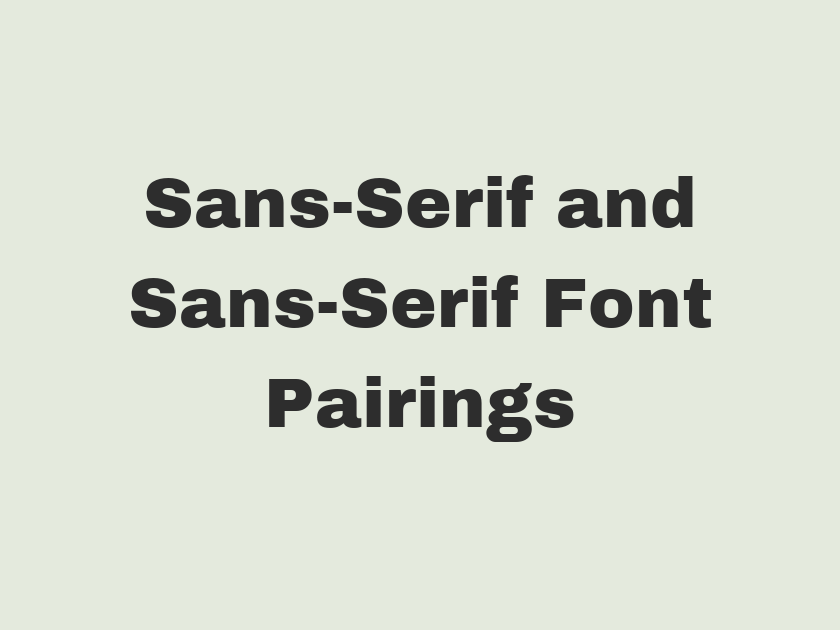
10 Best Sans-Serif and Sans-Serif Font Pairings
Pairing two sans-serifs takes a careful eye, since without the classic serif-versus-sans contrast you have to build hierarchy through weight, width, and proportion instead. The best sans-serif font combinations lean on a strong shift in personality, whether that means condensed against open, geometric against humanist, or heavy against light, so the page still reads with clear structure. These Google Fonts pairings work well for web interfaces, branding systems, and editorial layouts that want a modern, unified look without a single serif in sight.
Archivo Black + Archivo
Bold Statements, Clean Lines
This sentence sits comfortably beneath the heading, sharing its structure but at a lighter, more readable weight.
Archivo Black and Archivo come from the same type family, so the letterforms share identical proportions and skeletons; the only real variable is weight. That built-in relationship makes the transition from a heavy, attention-grabbing headline to a relaxed paragraph feel seamless, which suits dashboards, product pages, and tech branding.
Poppins + Inter
Geometric Meets Neutral
Inter was drawn for screens, and its calm, neutral letterforms make long paragraphs easy on the eyes.
Poppins brings a geometric, almost architectural personality to headlines with its circular bowls and even strokes, while Inter is engineered for legibility at small sizes on screens. The contrast between a distinctive display shape and an unobtrusive text face is exactly what keeps interfaces and marketing sites feeling both stylish and readable.
Space Grotesk + Work Sans
Technical Yet Approachable
Work Sans keeps the tone friendly and open, balancing the slightly quirky character of the headline above.
Space Grotesk has just enough personality in its ink traps and quirky curves to feel technical without turning cold, and Work Sans offers a warmer, more conventional grotesque for supporting copy. This pairing suits startup sites, developer tools, and editorial pieces that want a modern, slightly offbeat edge.
Oswald + Nunito Sans
Condensed Headlines, Open Text
Nunito Sans has soft, rounded terminals that keep body copy feeling friendly and easy to scan.
Oswald’s tall, narrow proportions make it excellent for punchy headlines that need to command space without taking up width, and Nunito Sans answers with a rounder, more generous body face. The width contrast between condensed and open forms gives the pair clear hierarchy at a glance, good for posters, blog headers, and news-style layouts.
Bebas Neue + Karla
Loud Titles, Calm Copy
Karla is a grotesque with subtle warmth, an easy match for a display face this bold and condensed.
Bebas Neue is all caps and maximum impact, so it needs a body font that steps back and lets paragraphs breathe; Karla’s understated grotesque forms do exactly that. This combination works well for event branding, posters, and any design where the headline needs to shout while the details stay composed.
Montserrat + Source Sans 3
Modern Geometric Structure
Source Sans 3 was built for interfaces and reads cleanly at small sizes across long passages of text.
Montserrat’s geometric, urban-inspired letterforms give headlines a confident, modern feel, while Source Sans 3 offers a workhorse text face with excellent legibility. The two share a similar x-height and even color on the page, so switching between them never feels jarring, making this a reliable choice for corporate and SaaS websites.
Anton + PT Sans
Industrial Headline Impact
PT Sans is sturdy and neutral, a dependable partner for a heading this stylized and tall.
Anton carries an industrial, stencil-adjacent energy inspired by Chicago signage, so it needs a body font with no attitude of its own; PT Sans supplies exactly that restraint. Reserve this pairing for bold editorial headers, city guides, or branding that wants a hint of urban grit.
Libre Franklin + Mulish
American Grotesque Heritage
Mulish is a minimalist sans that stays out of the way, letting the heading above do the talking.
Libre Franklin descends from the classic American Franklin Gothic tradition, and its sturdy, upright forms make confident headlines. Mulish, by contrast, is deliberately minimal and low-key, so it recedes into the background for body copy, an approach well suited to editorial sites and long-form articles.
Raleway + Public Sans
Elegant Display Sans
Public Sans was designed for government and civic use, prioritizing clarity above all else.
Raleway’s refined, slightly elongated letterforms give headlines an elegant, fashion-adjacent quality, and Public Sans balances that with a plain, highly functional text face. The pairing works because the display font supplies the personality while the body font supplies pure readability, a split that suits portfolios and lifestyle brands alike.
Barlow Condensed + Barlow
Shared Skeleton, Different Widths
Tips for pairing two sans-serifs
Look for at least one strong point of contrast, whether in width, weight, or geometric versus humanist character; without it, two sans-serifs can blur together.
Staying within one type family, as with Archivo or Barlow above, is an easy way to guarantee harmony while still changing weight or width for hierarchy.
Check x-heights side by side; mismatched x-heights between an all-caps display face and a lowercase-heavy body face can make the pairing feel uneven.